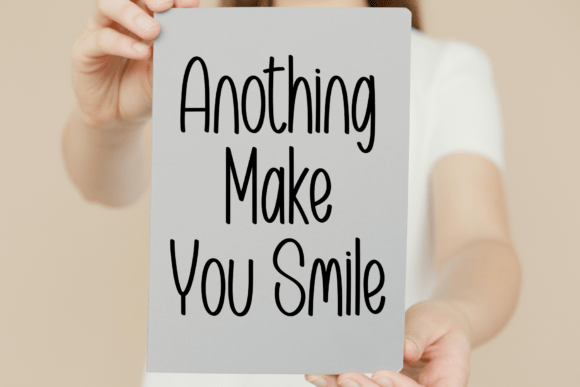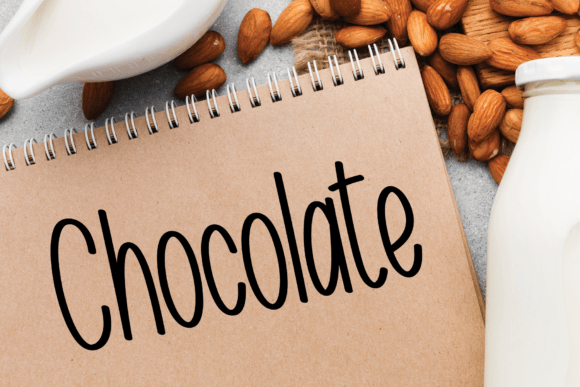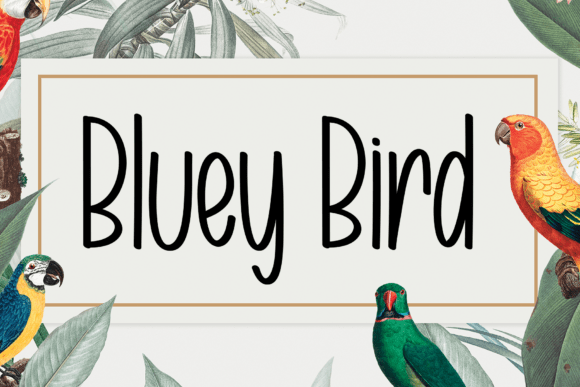
Introduction to Dearly Cake Font
Dearly Cake is a charming handwritten font filled with a sense of heartfelt perfection.
Its smooth strokes and organic lines evoke a relaxed atmosphere, making it perfect for a variety of design projects Whether used for branding, invitations or social media graphics.
Key Features of Dearly Cake Font
Why Choose Dearly Cake Font?
Dearly Cake Font offers exceptional quality and versatility, making it a valuable addition to your design toolkit. Whether you’re creating for personal projects or commercial use, Dearly Cake Font delivers professional results.